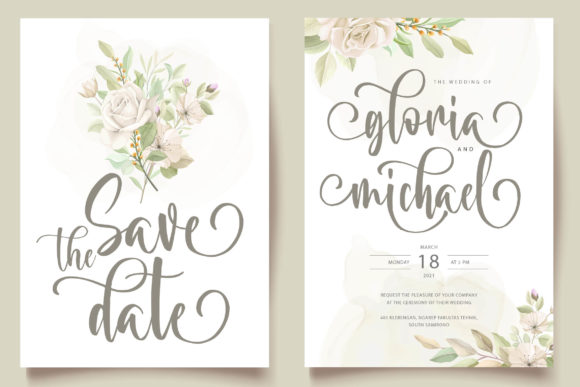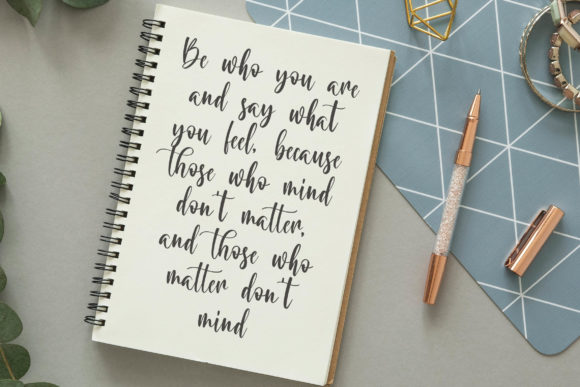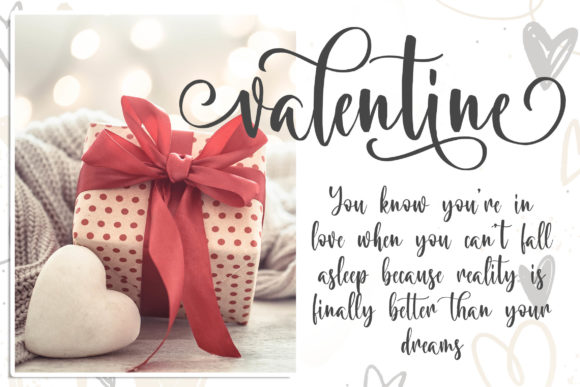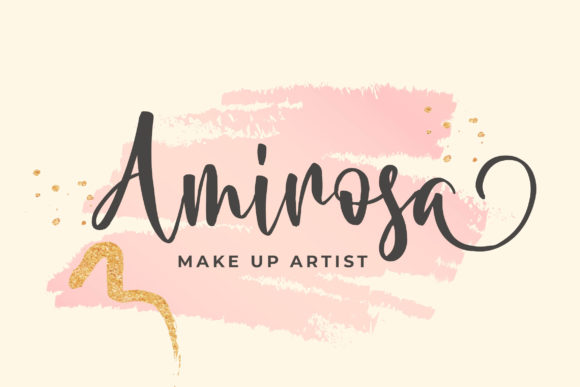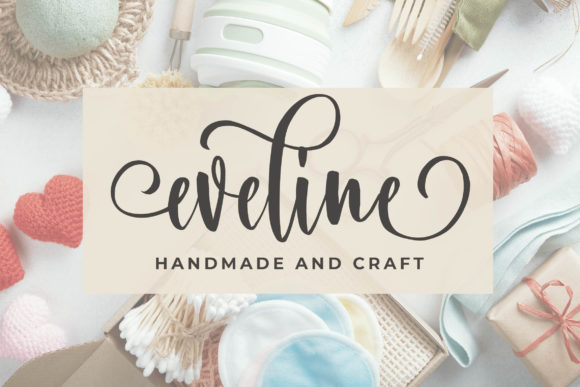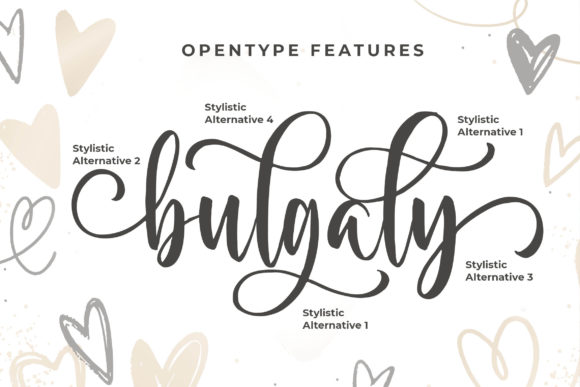
Introduction to Almeida Font
Almeida is a beautiful script font, whose characters flow effortlessly across the page.
It is PUA encoded which signifies that you may access all of the glyphs and swashes with ease Enchant in this wonderful creation and add it to your elegant designs.
Key Features of Almeida Font